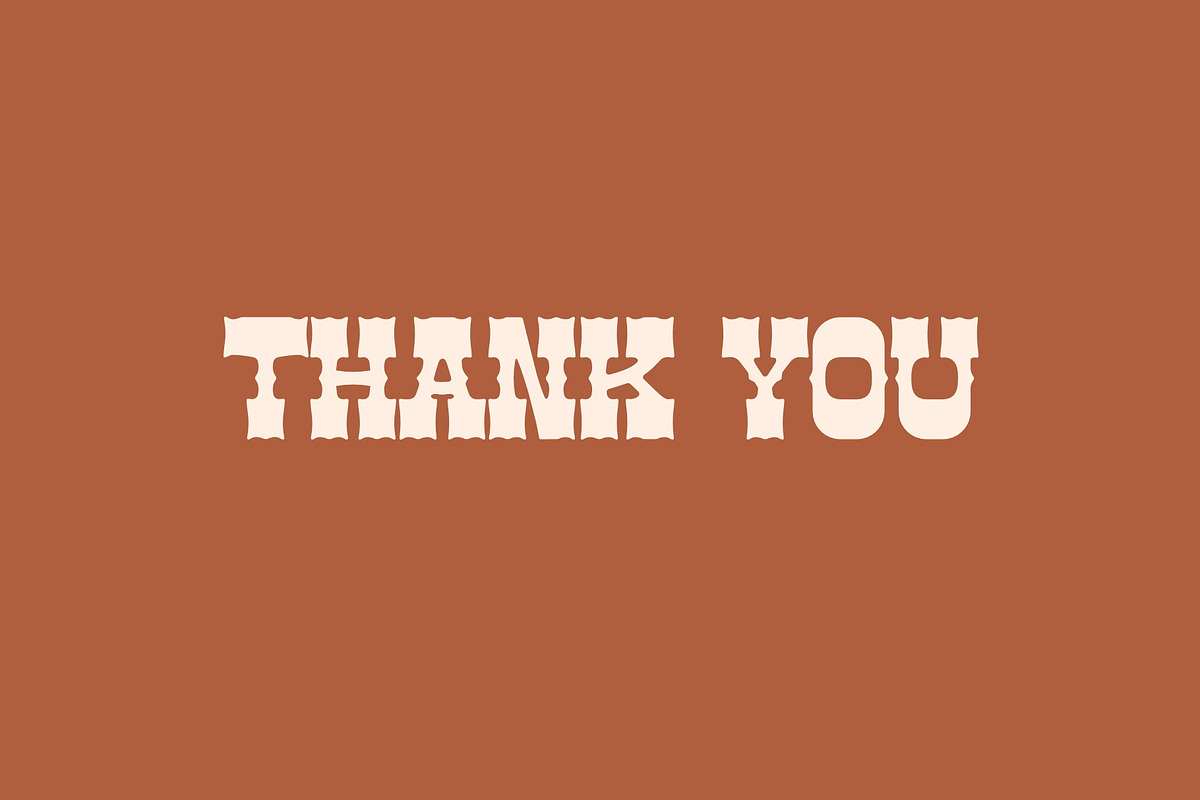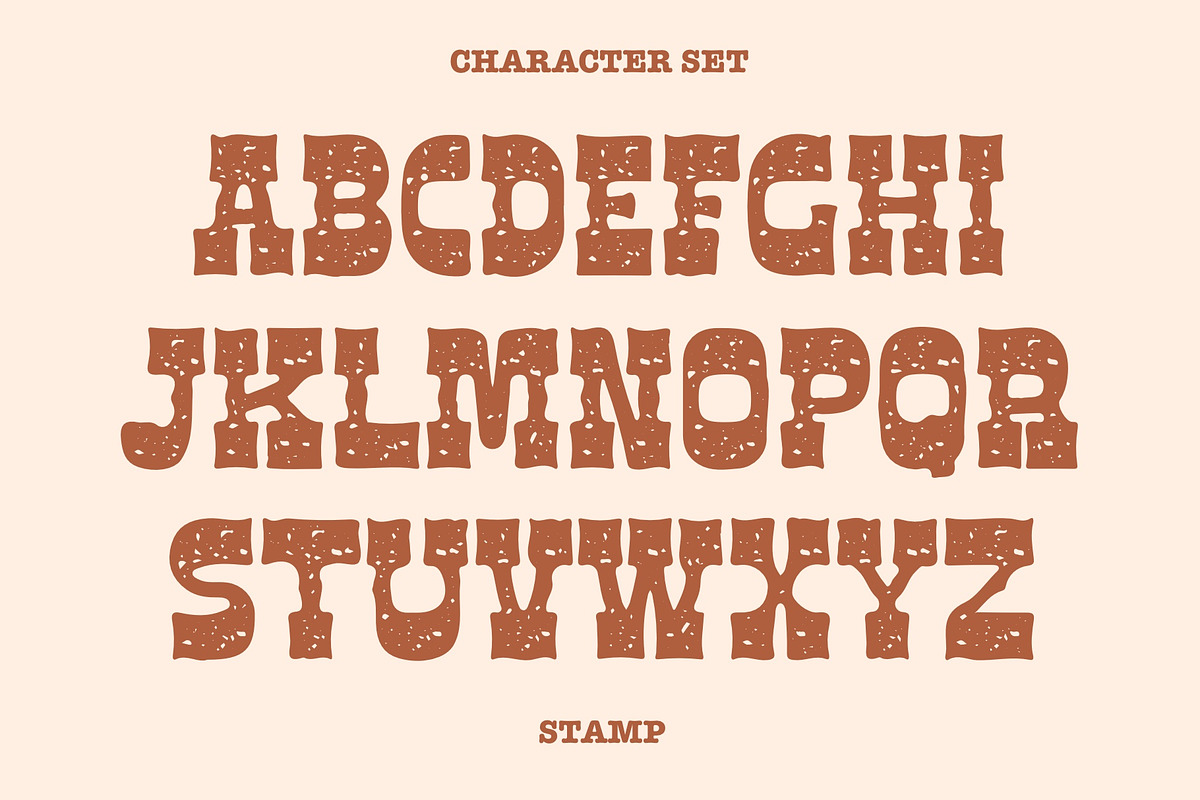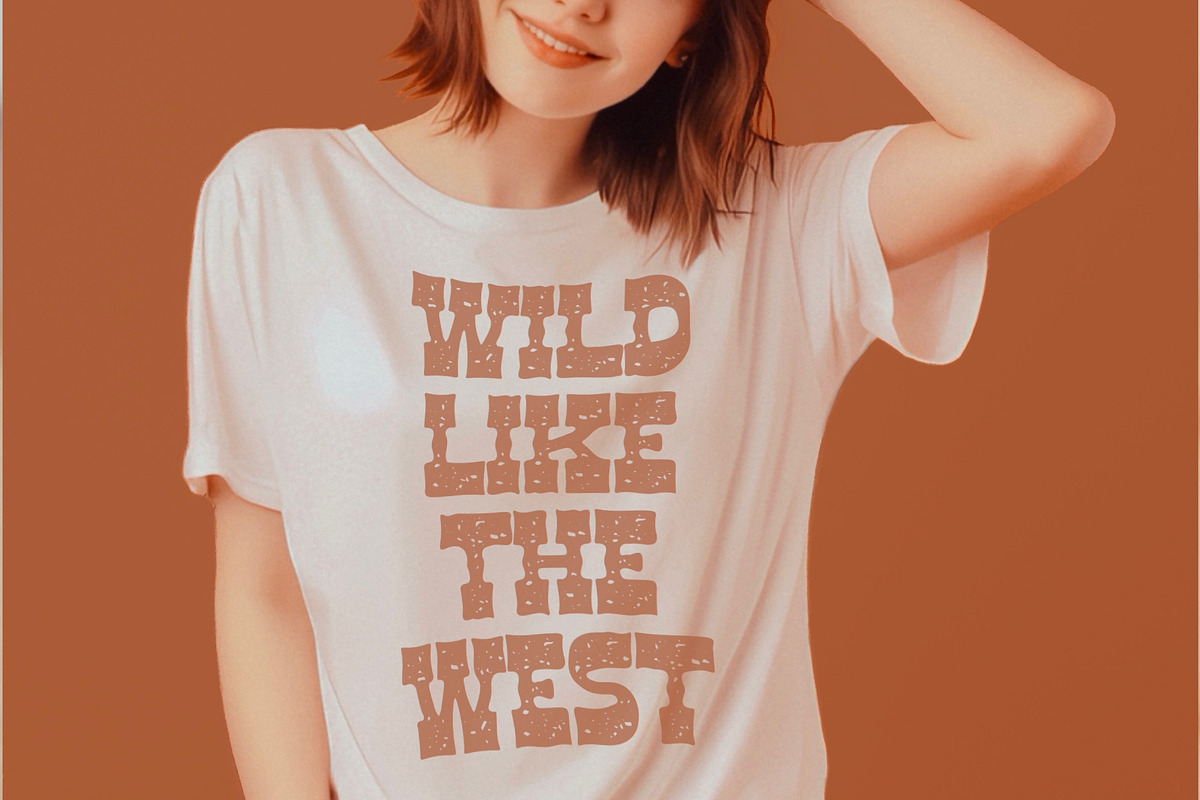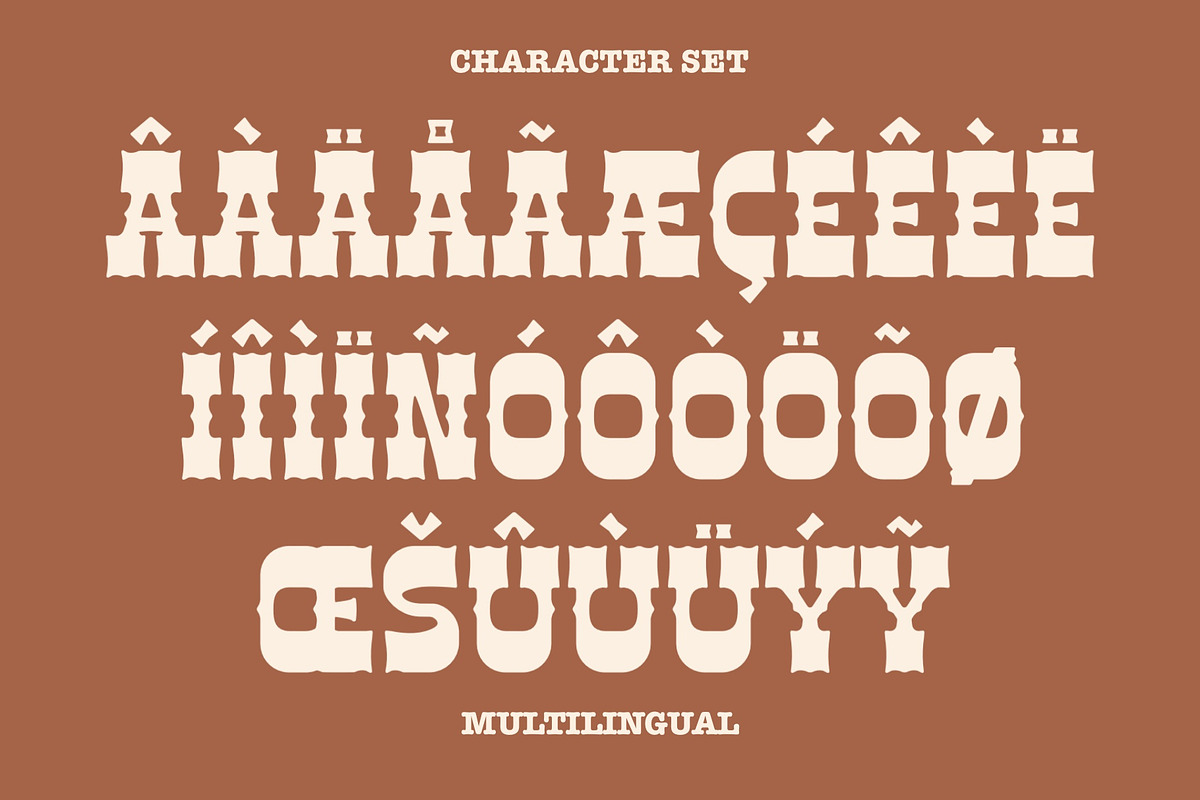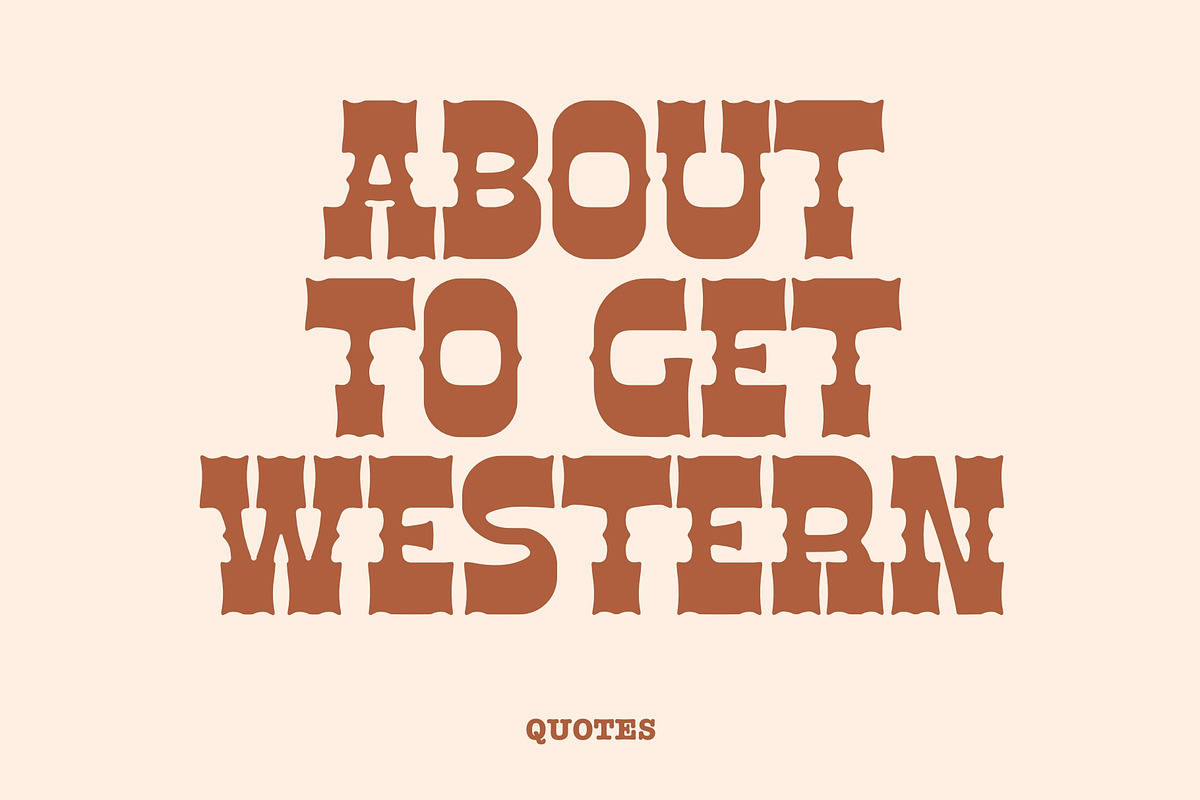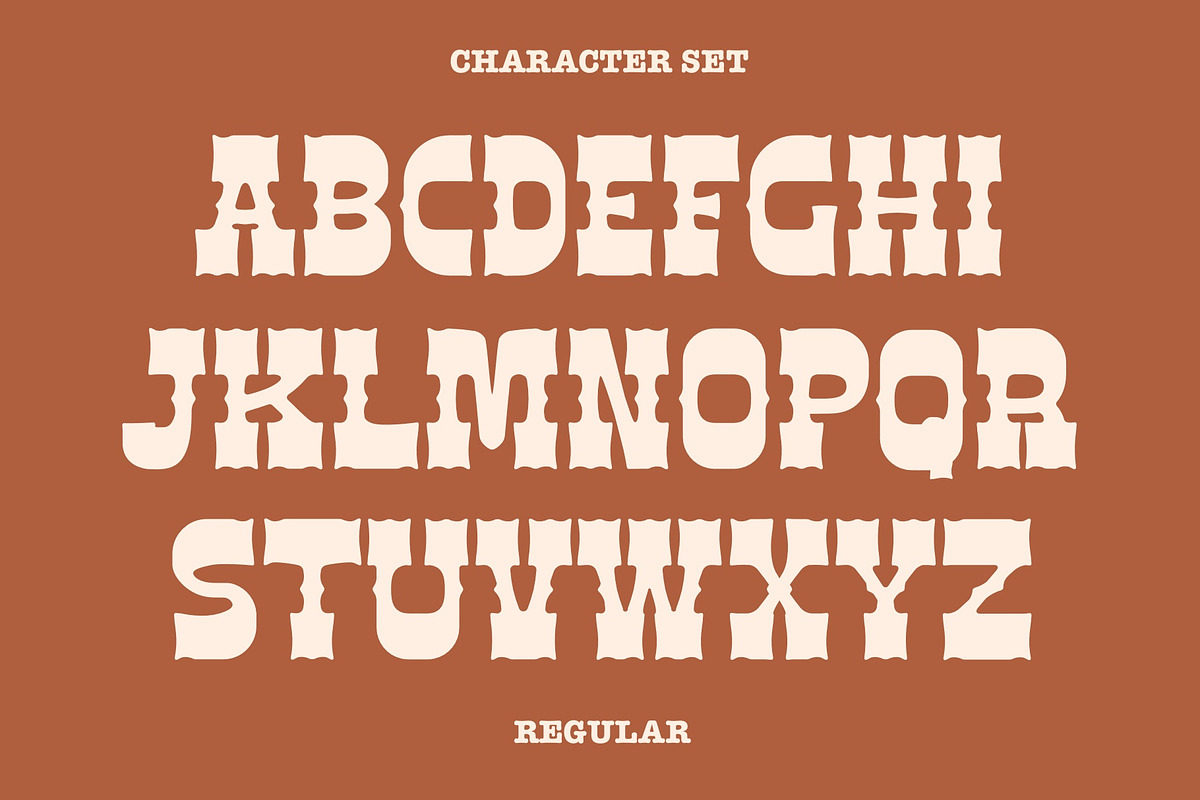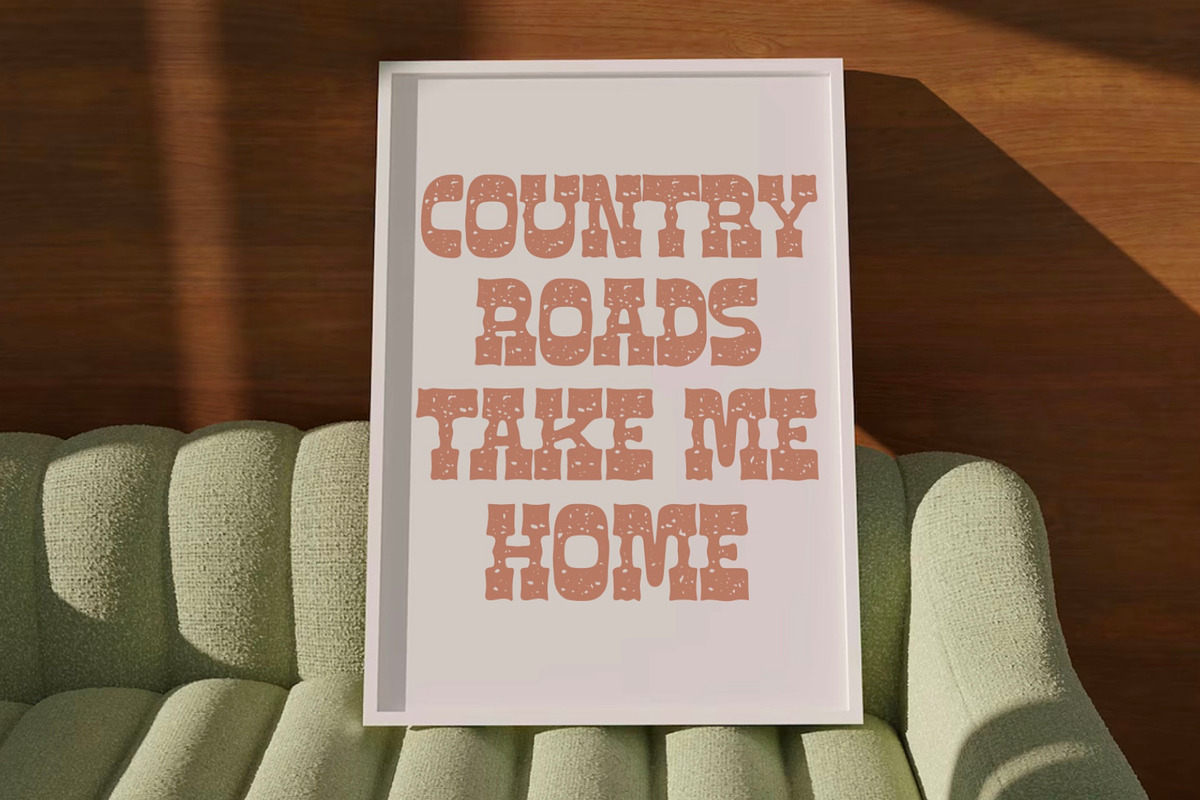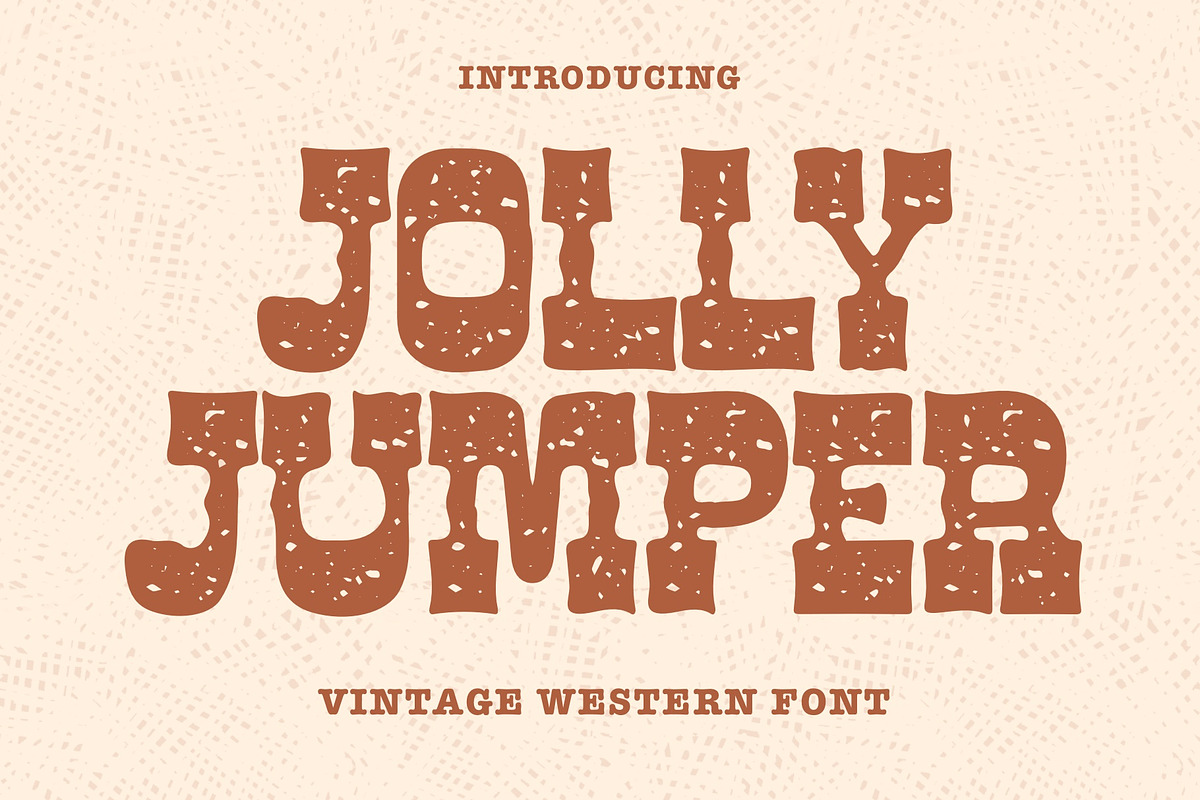
Jolly Jumper Font - Vintage Font
Jolly Jumper is a captivating serif font that effortlessly transports you to the nostalgic era of the Wild West with its vintage charm. This typeface available in SVG format, compatible with advanced tools such as Cricut and Glowforge, and for use in Procreate. This meticulously crafted typeface seamlessly combines the timeless elegance of serifs with a distinct Western flair, evoking images of weathered saloon signs and cowboy adventures.